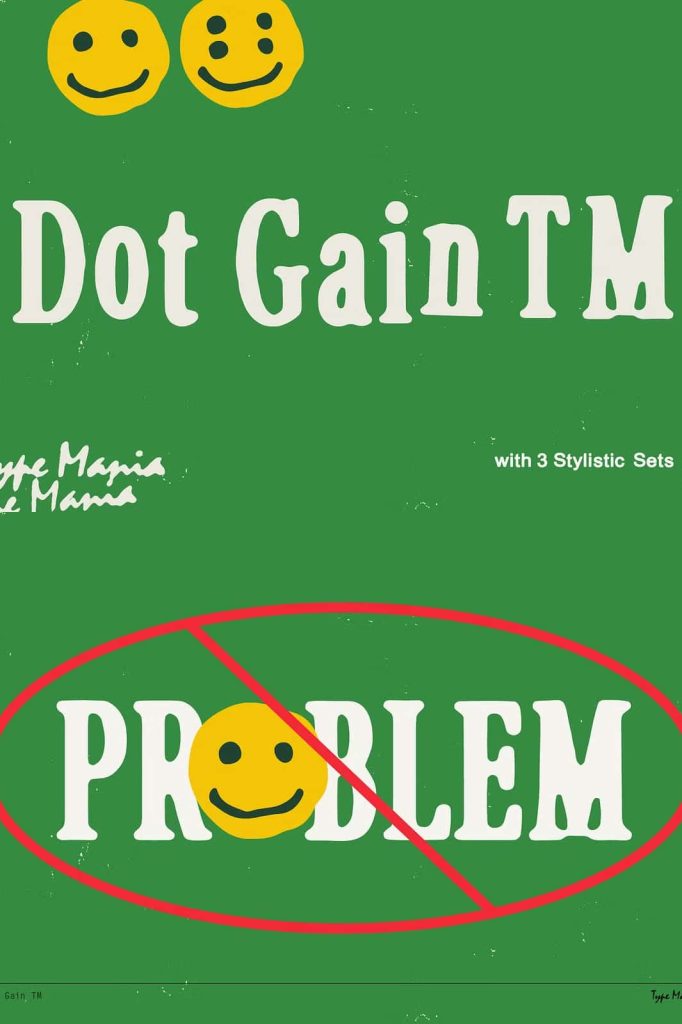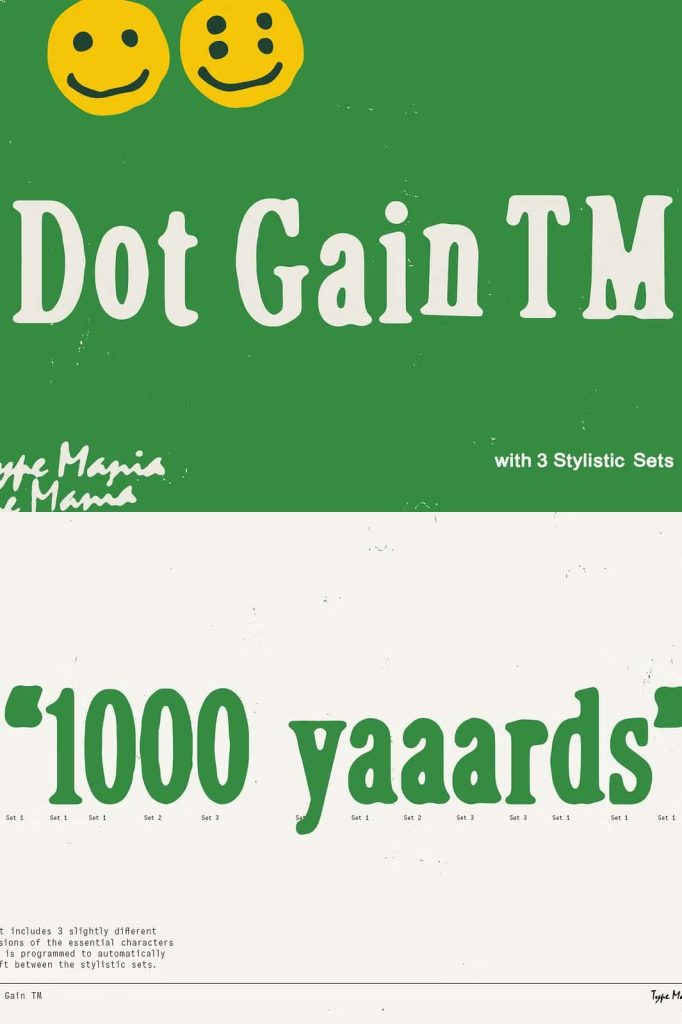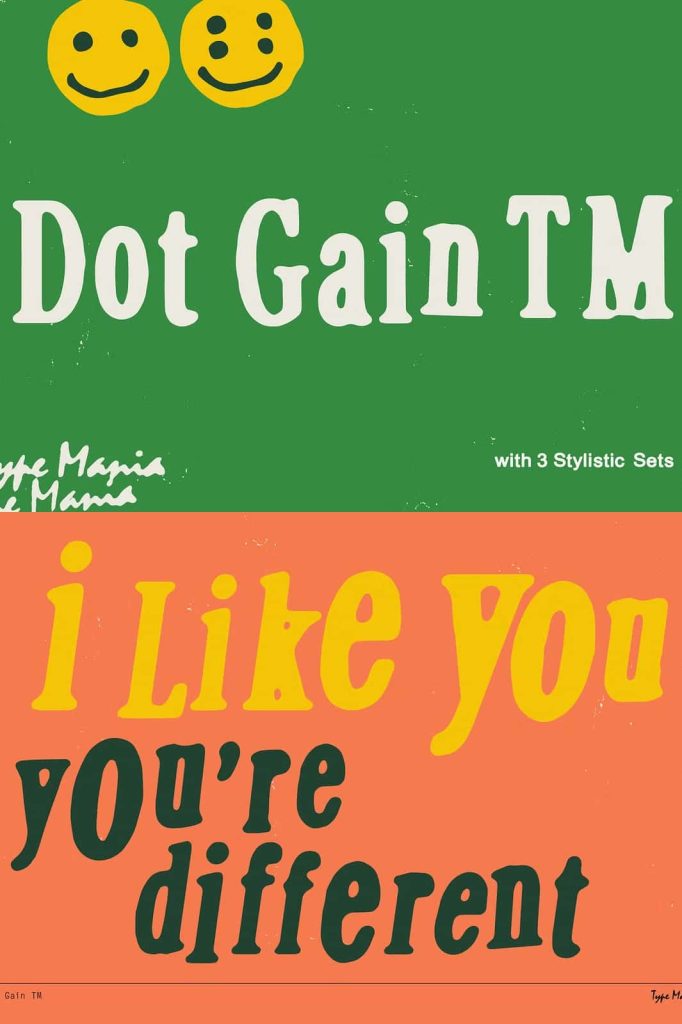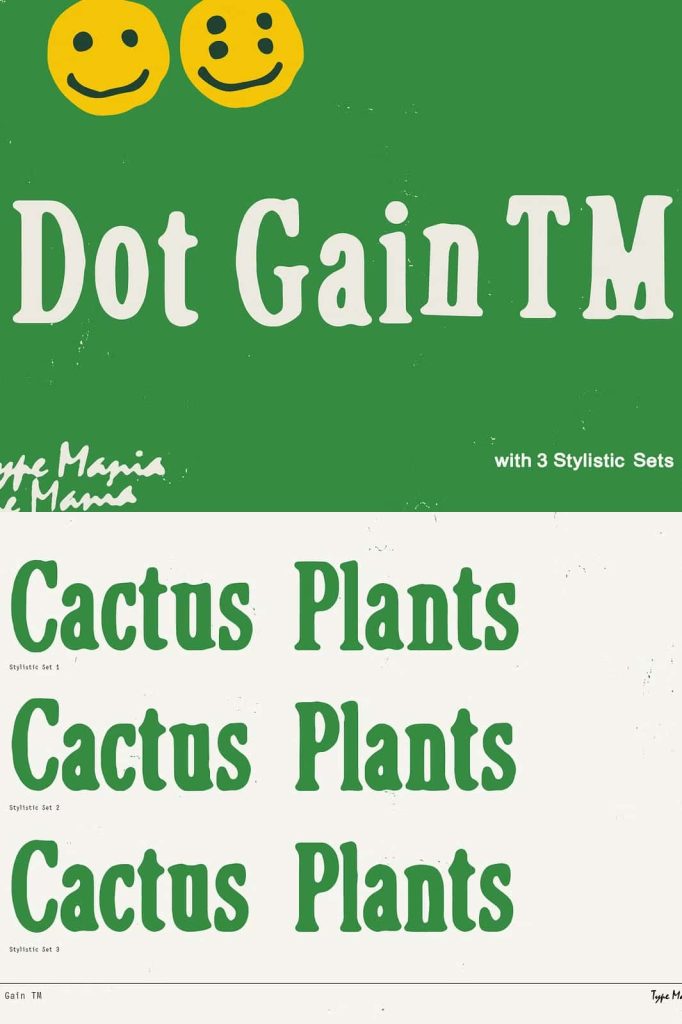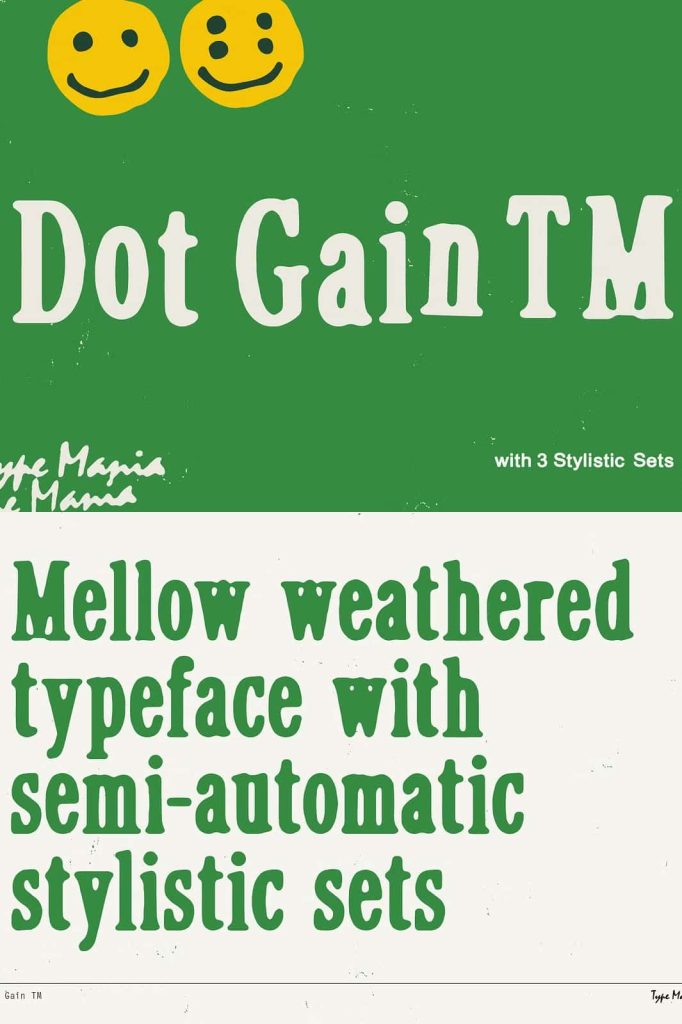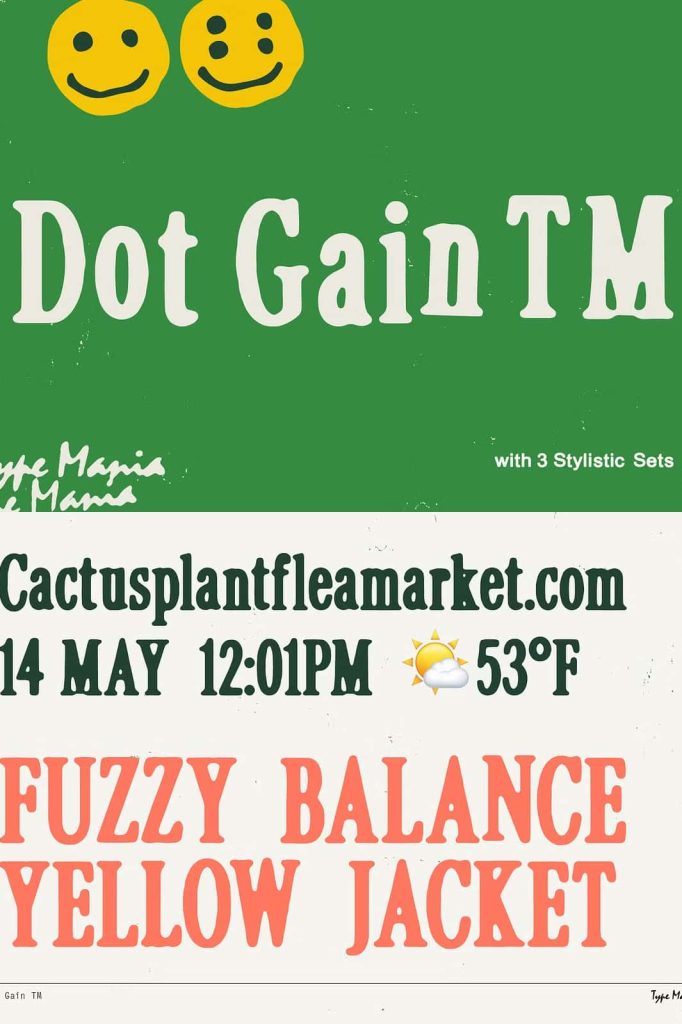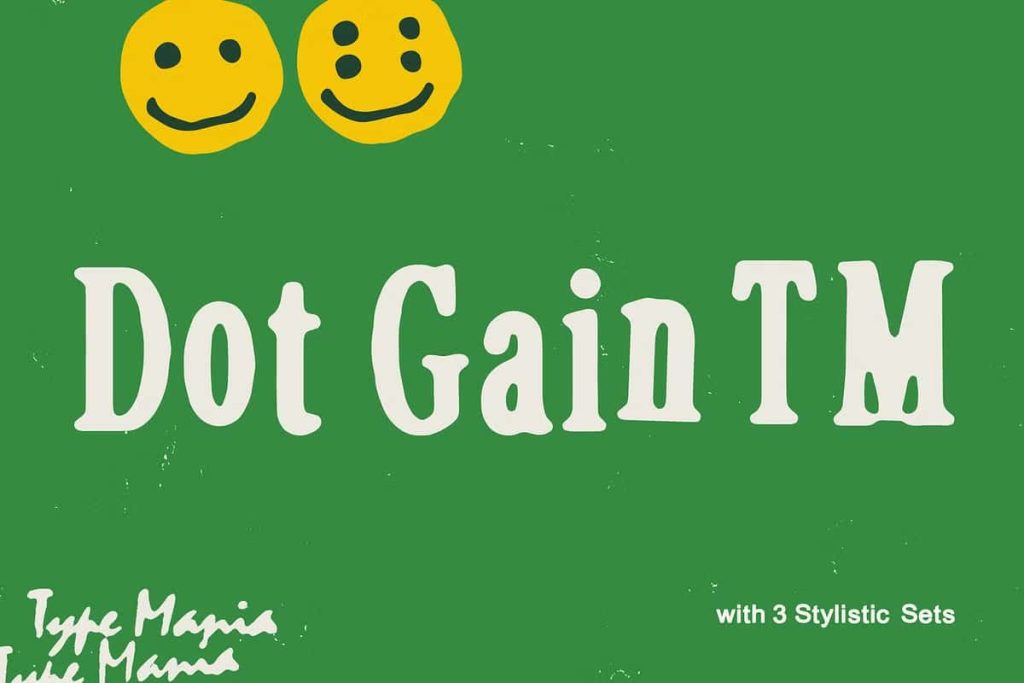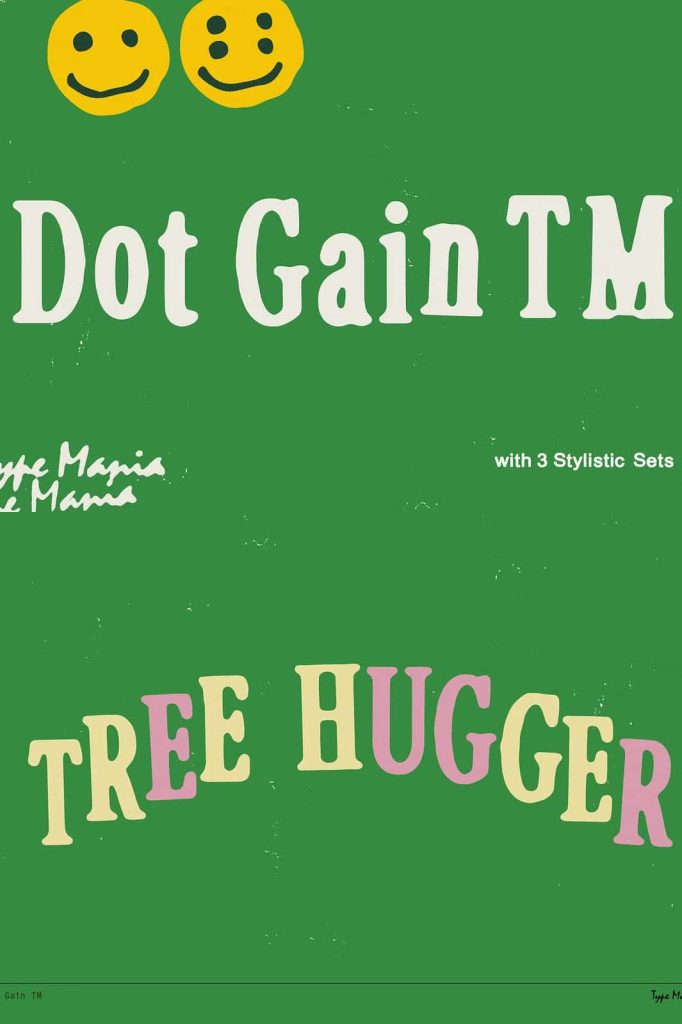
Get cozy with Dot Gain TM. Inspired by the gentle imperfections of yesteryears’ printing presses, Dot Gain TM captures the essence of a bygone era with its scruffy appearance